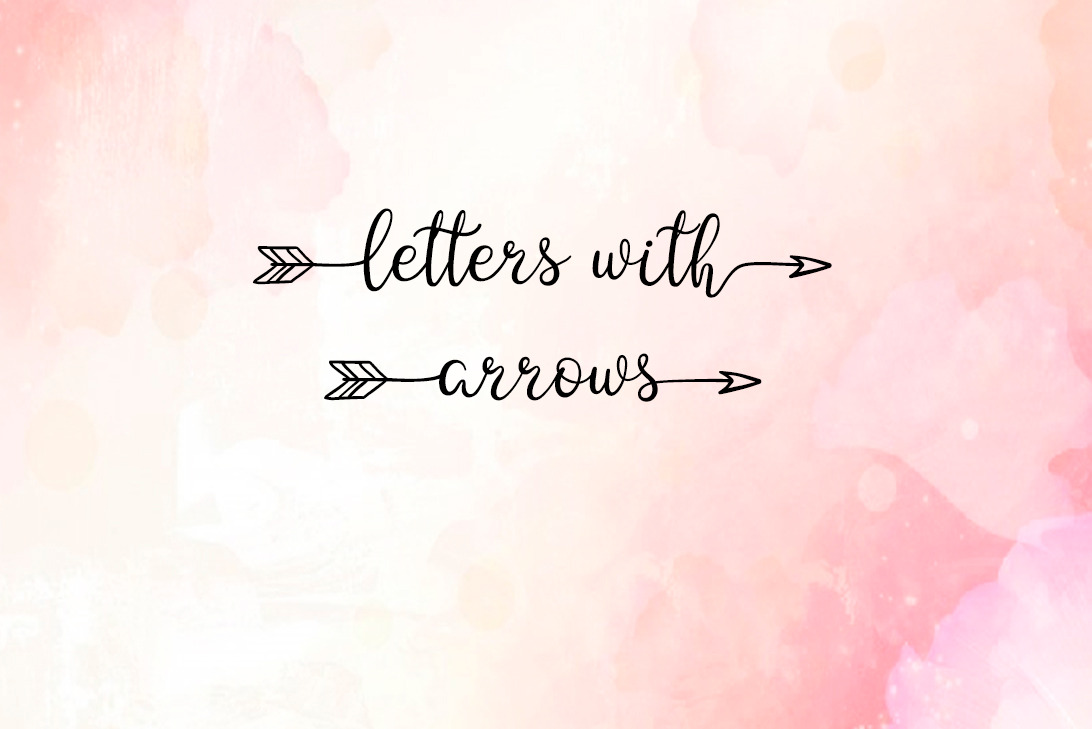
Arrow font
Handwritten font with arrows for your crafts. Each letters was made very carefully. So you may just type with it. Any message would look cute.